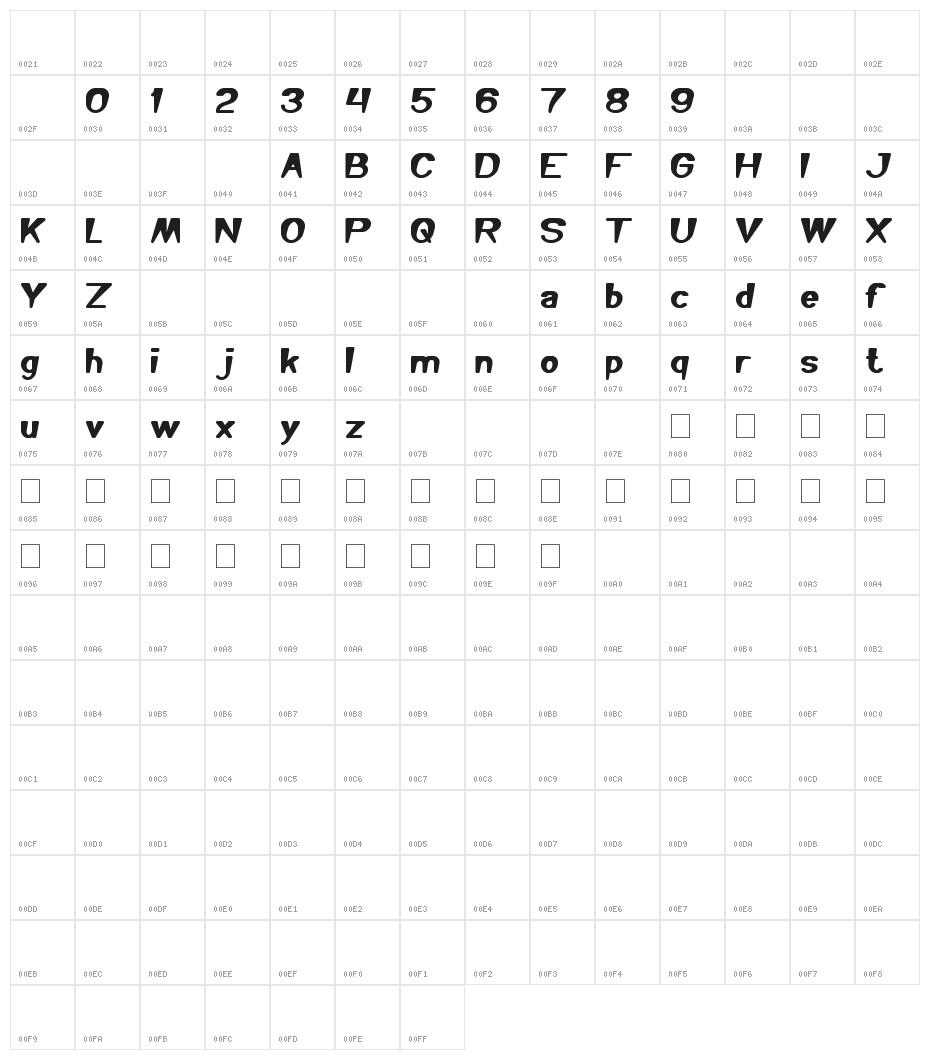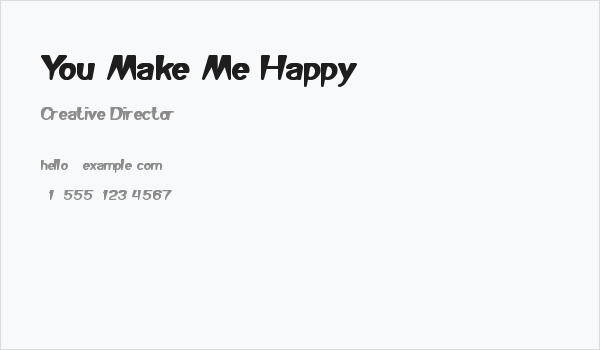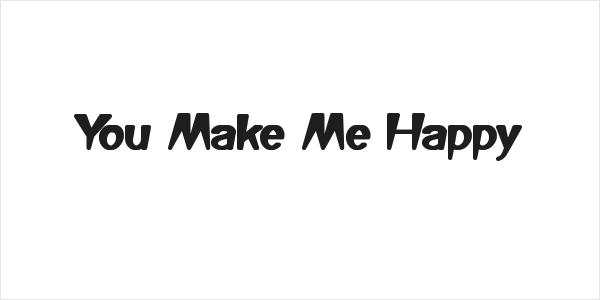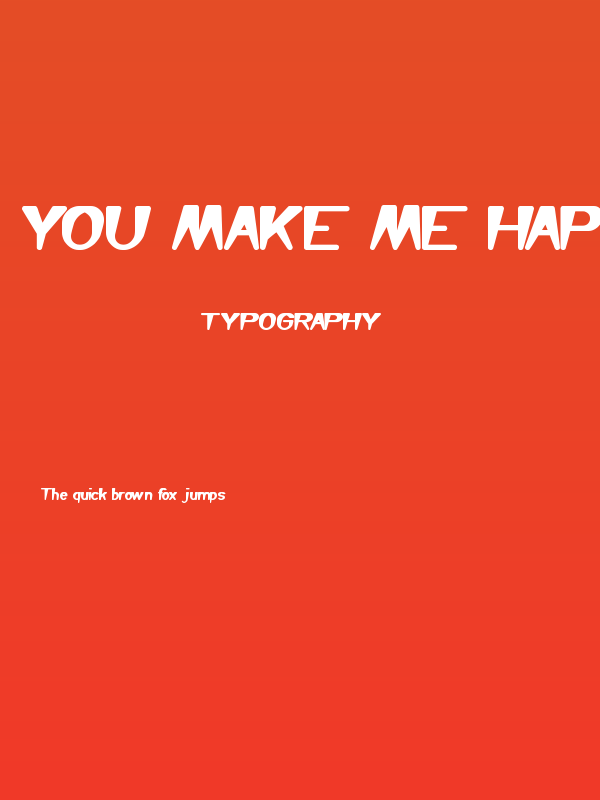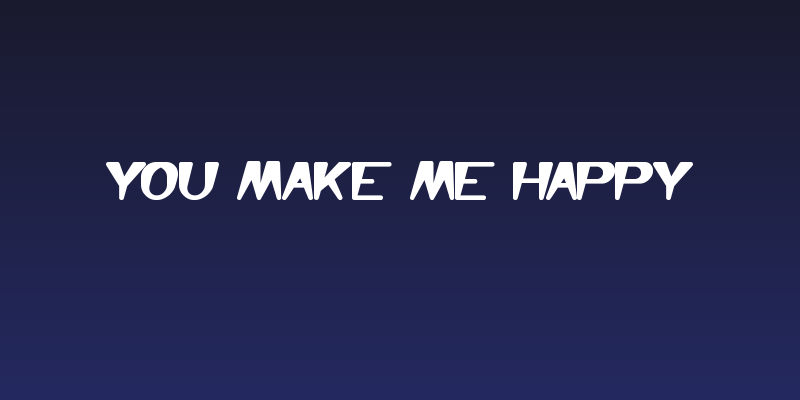
You Make Me Happy Font
You Make Me Happy Description
This playful and bold font features rounded edges and a slightly italicized style, giving it a dynamic and friendly appearance. The characters are thick and have a consistent stroke width, which adds to its boldness. The uppercase letters are slightly taller than the lowercase, maintaining a uniform width that enhances readability. The numbers are equally bold, with a quirky touch that matches the overall style. The special characters are designed to blend seamlessly with the letters and numbers, maintaining the same playful aesthetic.
| Proposed Projects | Ideal for children's books, playful branding, posters, and greeting cards. |